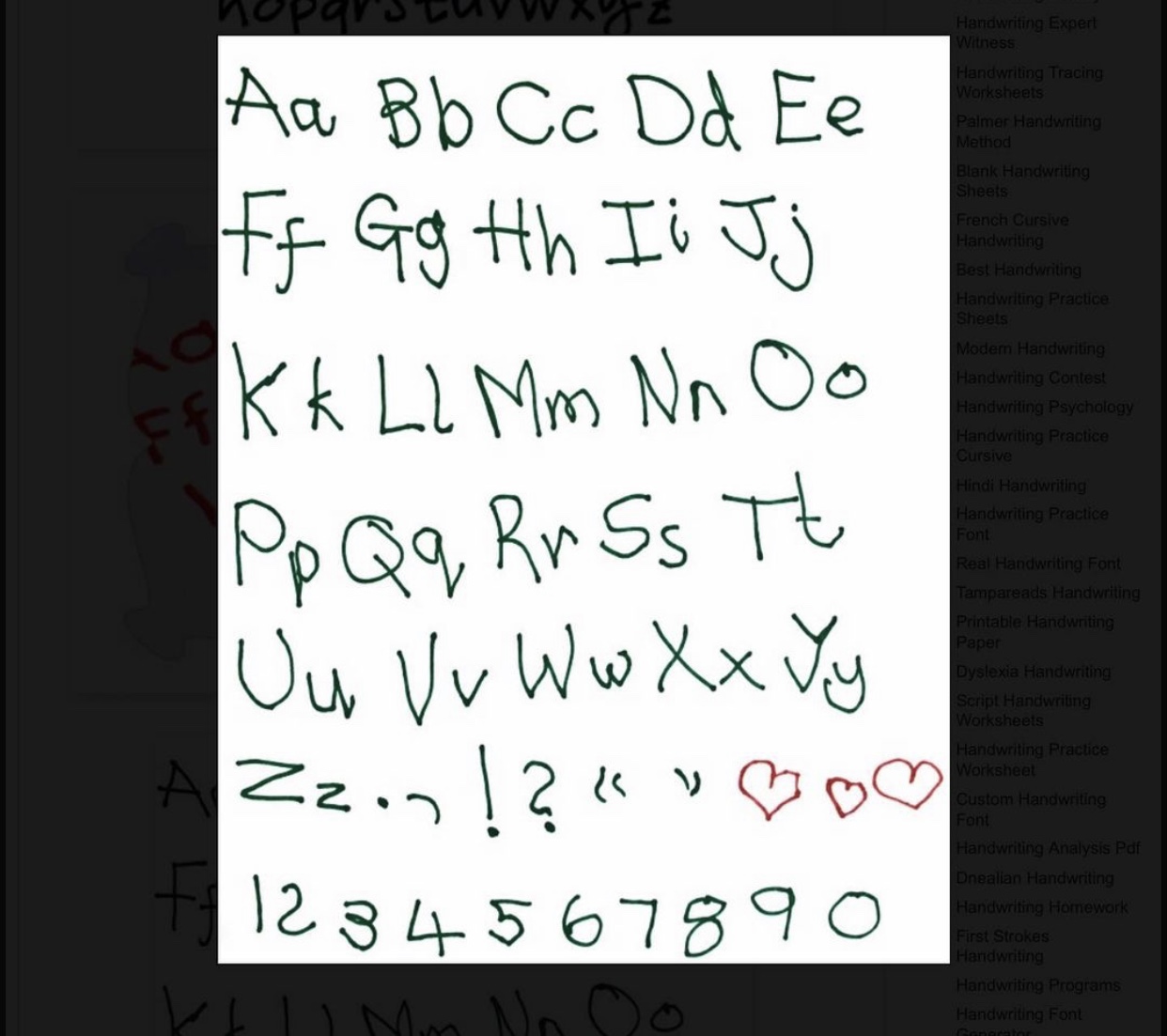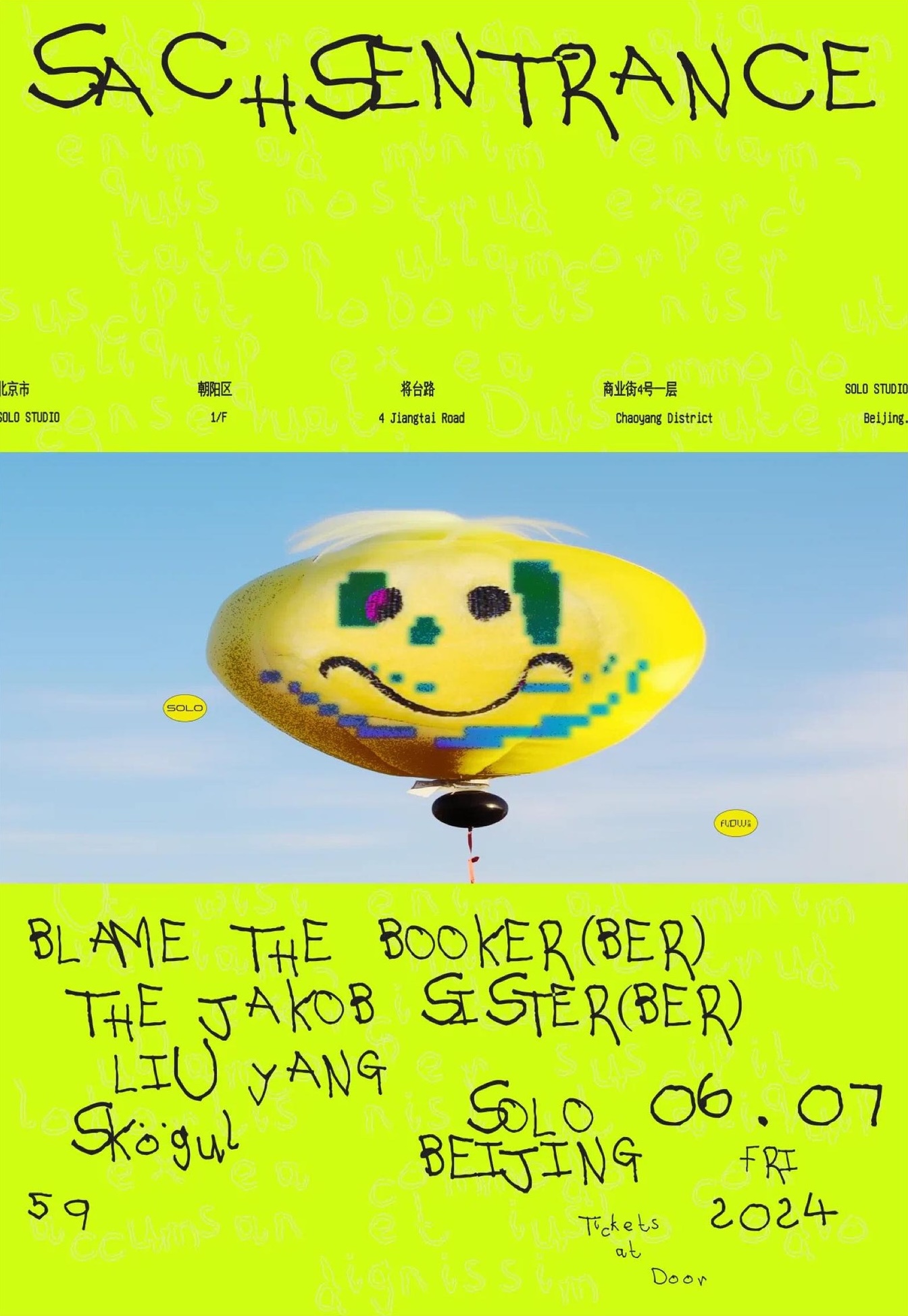
By Xiaoyuan Gao
Kiddo is a cheerful, hand-drawn marker typeface digitized from a found image of a drawn alphabet. Its loose rhythm, open counters, and wonky baselines keep text lively and human. Irregular, approachable, and unmistakably made by hand.
All characters extracted from this image